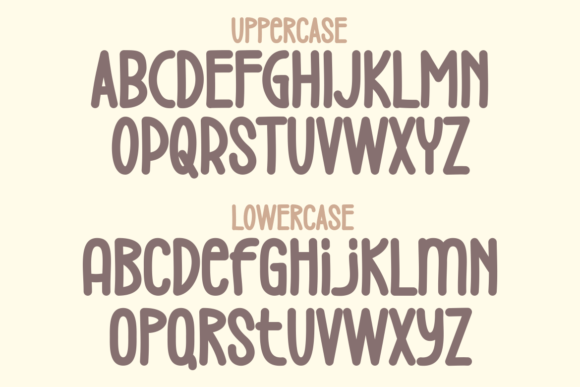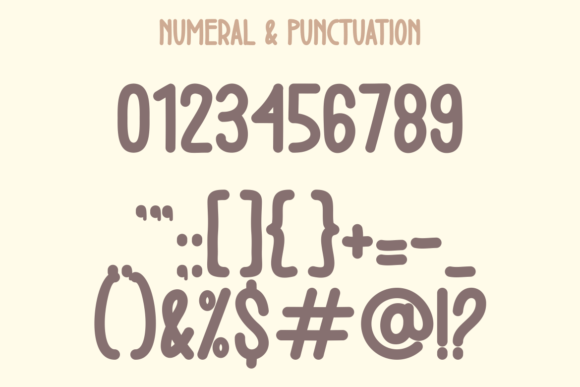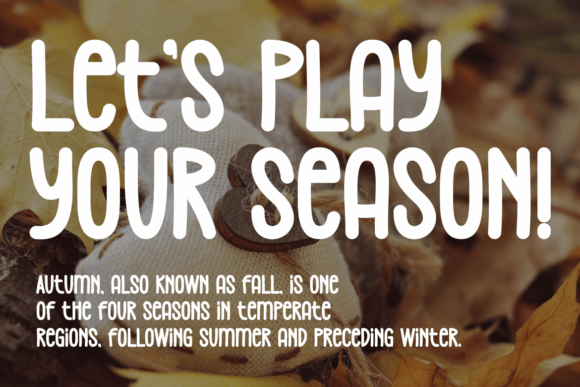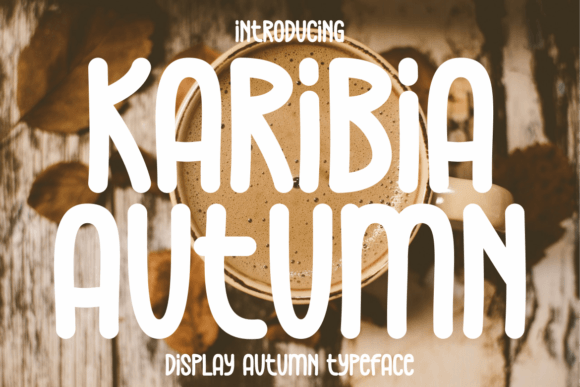
Introduction to Karibia Autumn Font
This font features a style that creates a warm sense of nostalgia and recalls the natural wonder as leaves change colors.
Delicate lines and gentle curves add dimension to the letter characters, creating an impression of softness and tranquility This font is highly suitable for projects that aim to depict the beauty and charm of the autumn season.
Key Features of Karibia Autumn Font